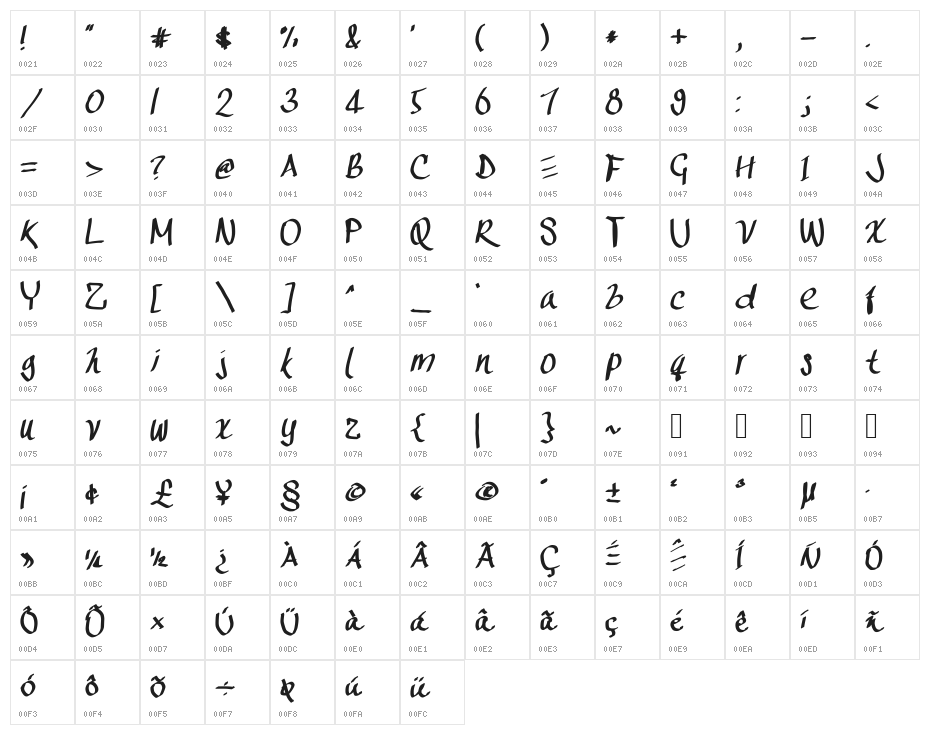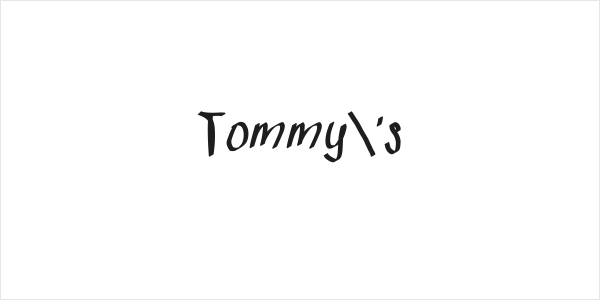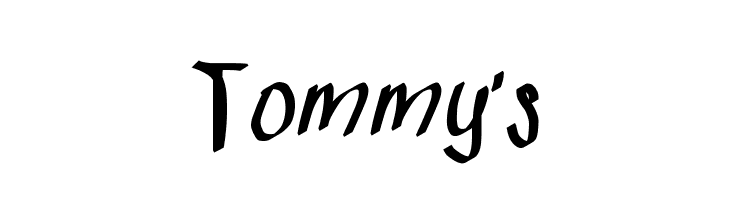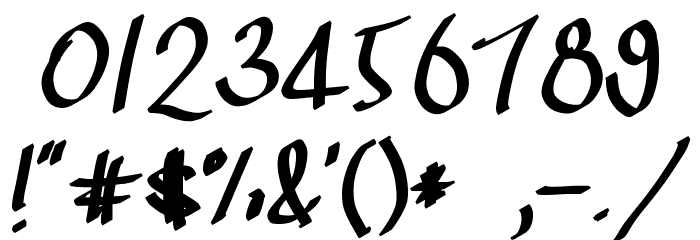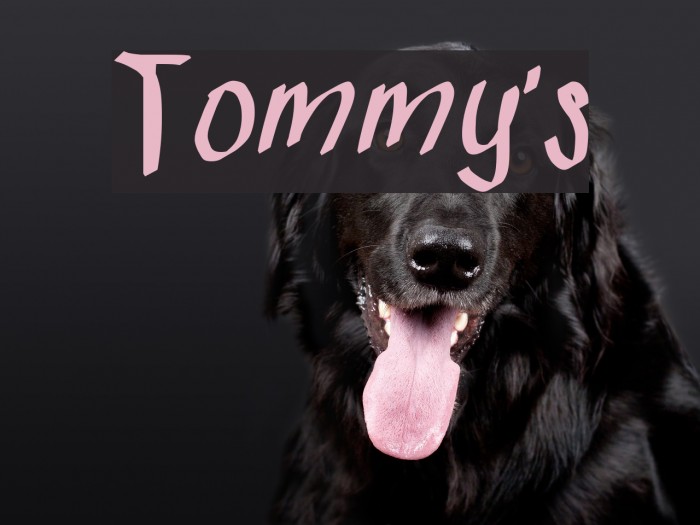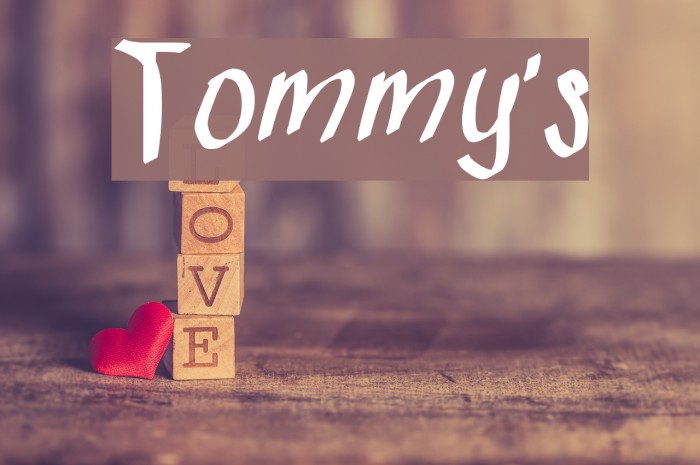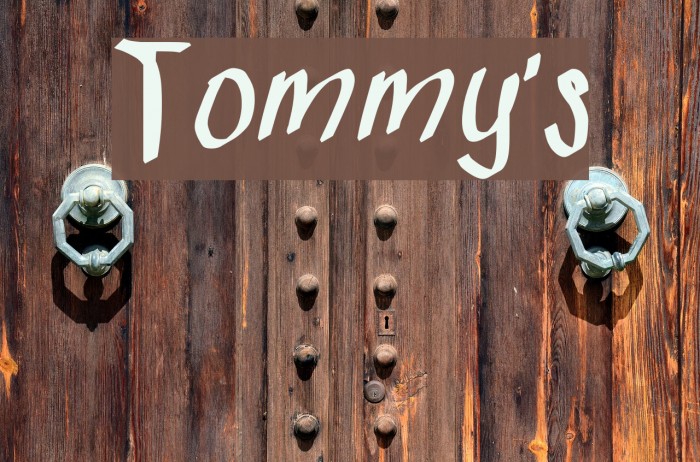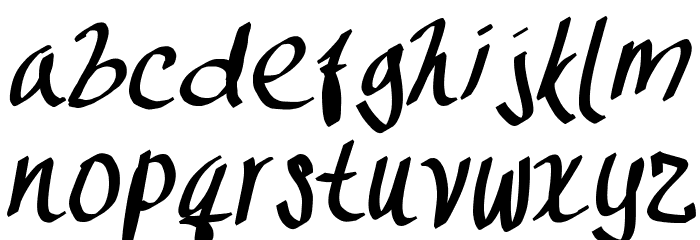
Tommy's Font
Tommy's Description
This font features a bold, expressive style with a handwritten appearance. The characters are dynamic and fluid, showcasing a unique blend of sharp angles and smooth curves. The uppercase letters are particularly striking, with a sense of movement and energy. The lowercase letters maintain a consistent style, complementing the uppercase with their own flair. Numbers and special characters are equally bold, ensuring a cohesive look across all text. This font's artistic nature makes it stand out, perfect for creative projects that require a personal touch.